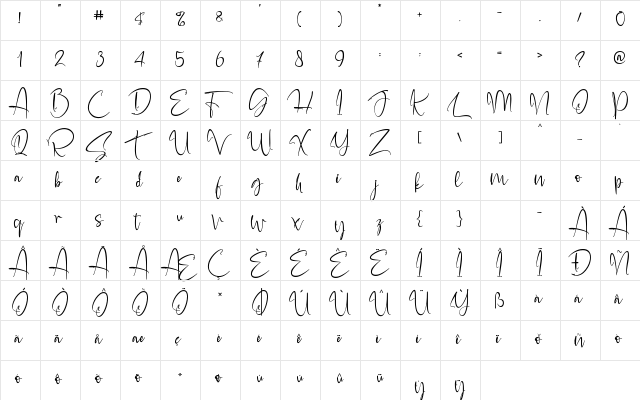
Alaskan malamute Regular
| Designer | Letterara |
Design Context for Alaskan malamute Typeface
Alaskan malamute is a composed and adaptable typeface that performs quietly and consistently across a wide range of design contexts.